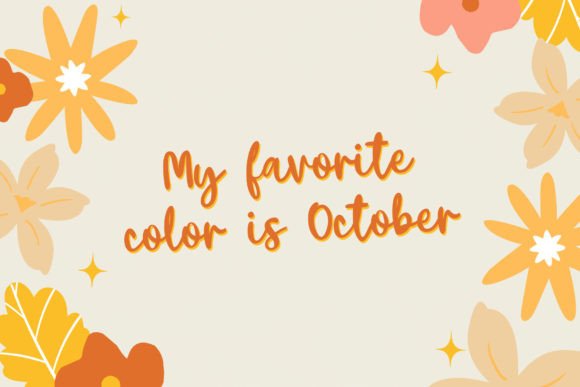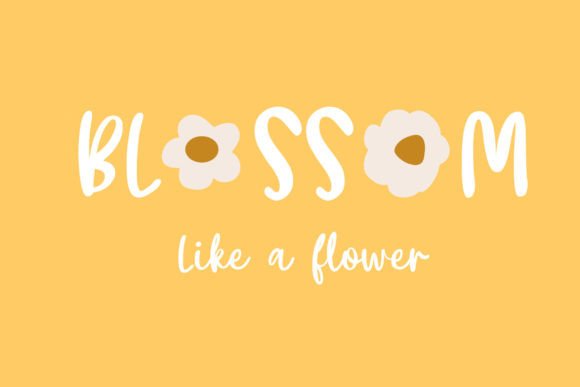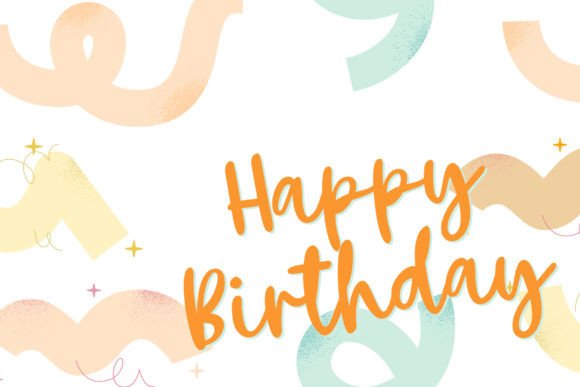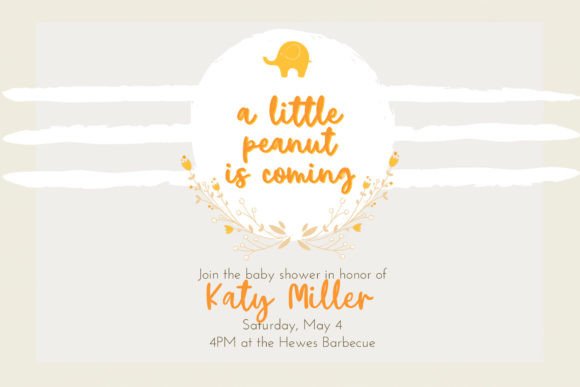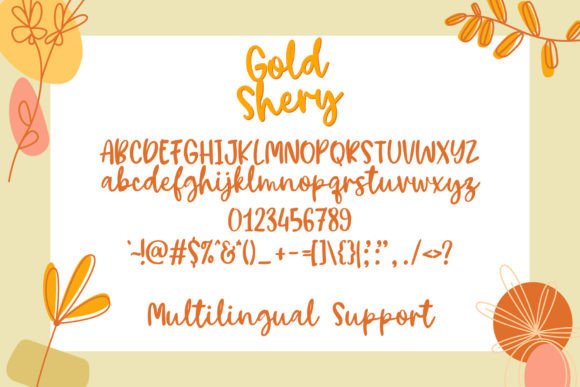
Introducing Gold Shery Font: The Ultimate Handwritten Script Font for Your Creative Projects
Are you a designer, crafter, or DIY enthusiast looking for a unique and captivating font to elevate your creative projects? Look no further than Gold Shery Font, a lovely handwritten script font that is sure to make your designs shine. With its gorgeous and fun aesthetic, Gold Shery is the perfect choice for any purpose, whether you’re working on a branding project, crafting a handmade card, or creating a stunning visual display.
The Beauty of Gold Shery Font
Gold Shery Font is a true gem in the world of typography. Its handwritten script style exudes a sense of warmth, elegance, and sophistication, making it perfect for a wide range of applications. The font’s flowing curves and delicate lines create a beautiful, organic feel that is sure to capture the attention of your audience. Whether you’re looking to add a touch of luxury, whimsy, or romance to your design, Gold Shery Font is the perfect choice.
Why Choose Gold Shery Font?
So, what sets Gold Shery Font apart from other fonts on the market? Here are just a few reasons why designers and crafters love this amazing font:
- Unique and eye-catching: Gold Shery Font is a one-of-a-kind font that is sure to make your designs stand out from the crowd. Its distinctive style and flair will add a touch of personality to any project.
- Versatile: Whether you’re working on a formal or informal project, Gold Shery Font is the perfect choice. Its elegant style makes it suitable for weddings, invitations, and other formal events, while its fun and playful vibe is perfect for crafts, DIY projects, and social media graphics.
- Scalable: Gold Shery Font is designed to be scalable, meaning it looks great at any size. Whether you’re working on a small craft project or a large-scale advertising campaign, this font will always look stunning.
How to Use Gold Shery Font in Your Designs
Using Gold Shery Font in your designs is easy and fun. Here are a few tips to get you started:
- Pair it with other fonts: Gold Shery Font pairs perfectly with a variety of other fonts, from bold and modern to elegant and sophisticated. Experiment with different font combinations to find the perfect look for your project.
- Use it for headings and titles: Gold Shery Font is perfect for headings and titles, where its elegant style and flowing curves can really shine.
- Add some color: Gold Shery Font looks amazing in a variety of colors, from metallic gold and silver to rich jewel tones and bright pastels. Experiment with different colors to find the perfect look for your project.
Make Your Design More Stunning with Gold Shery Font
In conclusion, Gold Shery Font is a truly special font that is sure to capture the hearts of designers and crafters everywhere. Its unique and eye-catching style, versatility, and ease of use make it the perfect choice for any creative project. Whether you’re looking to add a touch of luxury, whimsy, or romance to your design, Gold Shery Font is the perfect choice. So why wait? Download Gold Shery Font today and start creating stunning designs that will leave a lasting impression!